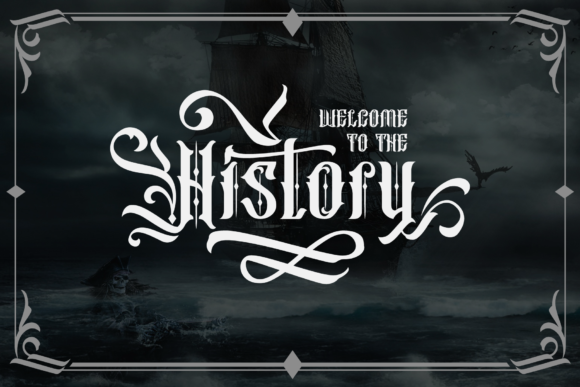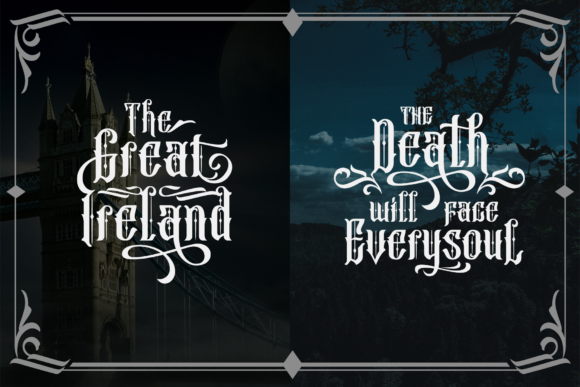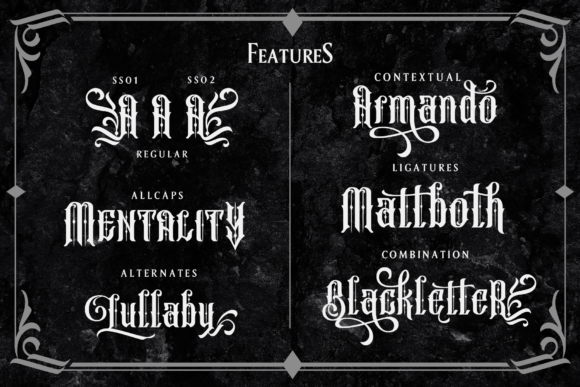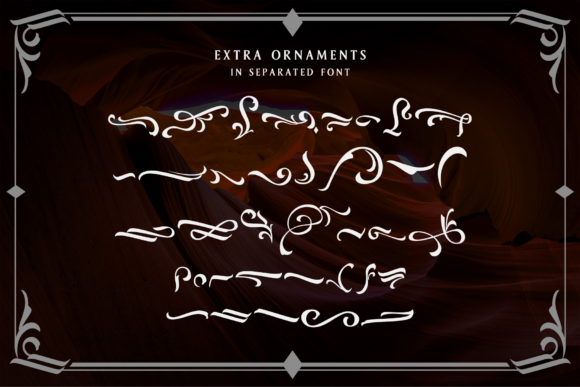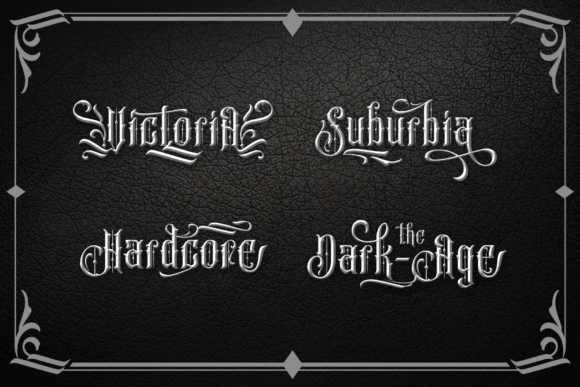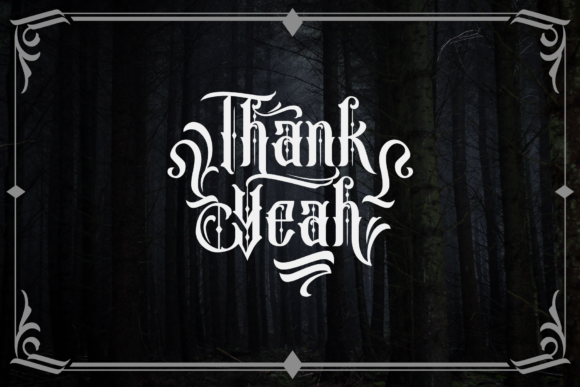
Introduction to Katheryna Font
Introducing Katheryna, the new exploration of a blackletter font.
Katheryna is carefully crafted with medium details This ornamental font is inspired from fraktur calligraphy and has a gothic taste.